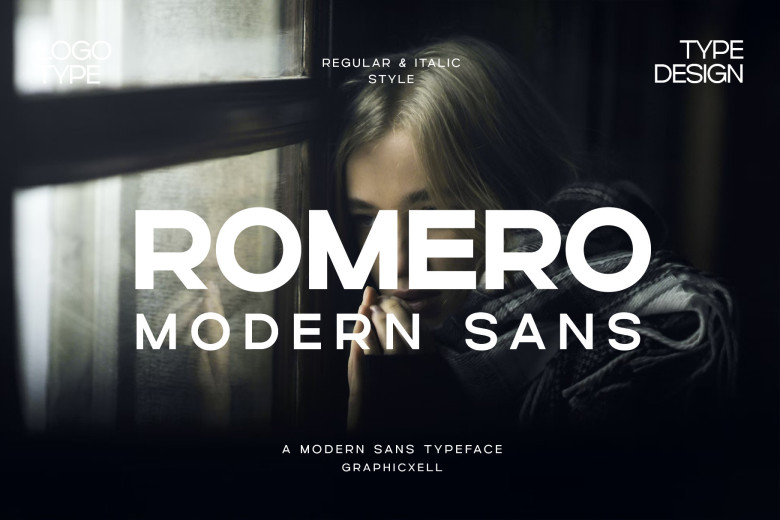
Romero Font
Romero features rounded corners and an even, balanced weight; this Sans Serif typeface exudes warmth, making it the ideal font choice for body text and headlines alike – ideal for any project!
Romero Sans Serif Font